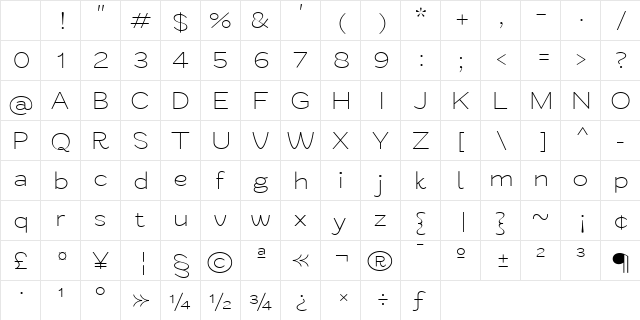
Zt Nezto Thin is a composed and adaptable typeface that performs quietly and consistently across a wide range of design contexts. Its slender proportions lend an understated elegance to any composition.